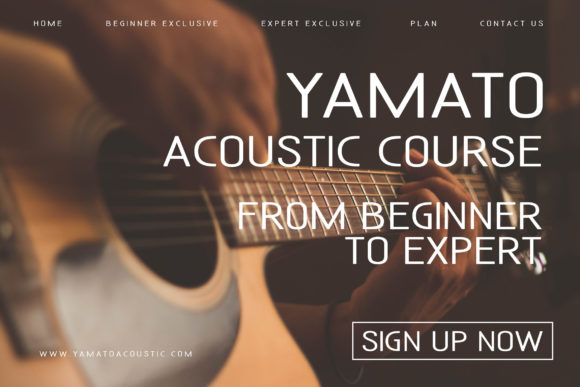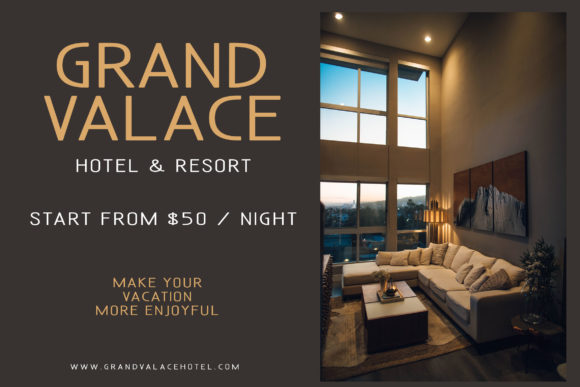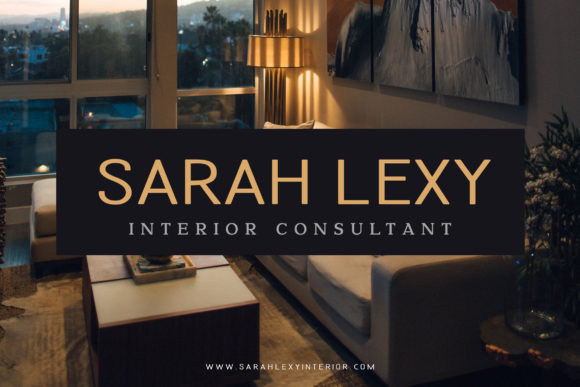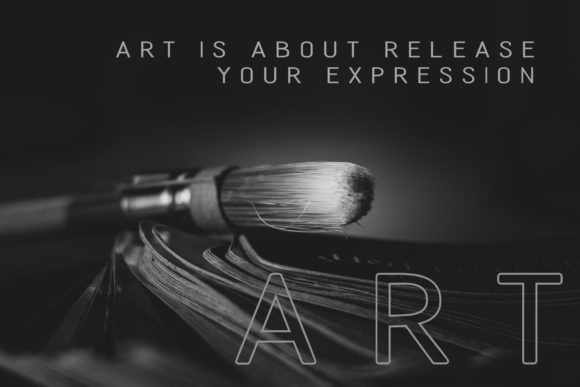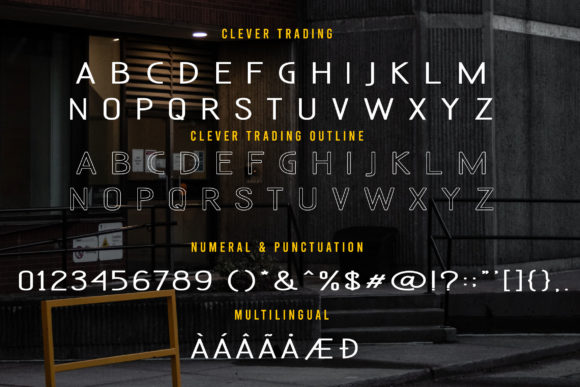
Have you ever stared at a blank page, waiting for that perfect idea to strike? That’s exactly where I was when I stumbled upon the Clever Trading Font. It’s as if the universe knew I needed a spark to ignite my creativity. The moment I saw its sleek, modern design, I knew I had to learn more about this clever font.
The Clever Trading Font is a simple yet effective sans serif font, perfect for web designs, business cards, or any project that needs a unique touch. Its clean lines and modern aesthetic make it a valuable addition to any designer’s toolkit. Whether you’re a seasoned pro or just starting out, the Clever Trading Font is an essential resource to elevate your designs and leave a lasting impression.
Clever Trading Font Key Features
- Font Styles: Clever Trading Font offers a range of font styles, including Regular, Italic, Bold, and Bold Italic, to cater to different design needs.
- Unique Characteristics: The font features a unique blend of modern and vintage elements, with clean lines, geometric shapes, and subtle texture, making it ideal for financial and business applications.
- Scalability: The font is designed to be highly scalable, ensuring that it remains legible and clear at various sizes and resolutions, from small text to large headings.
Clever Trading Font Review
As a designer, I’ve had the chance to play around with the Clever Trading Font, and I must say it’s an interesting choice for those looking for a unique trading or financial-related typography. ✨ The font’s design, which combines elements of modern and vintage styles, can work well in various applications such as websites, presentations, or even print materials.
Here are some of the things I like about Clever Trading Font:
- ✨ The font’s versatility in terms of style and functionality.
- ✨ The inclusion of various symbols and icons that can add a touch of professionalism to trading or financial-related content.
- ✨ The clear and legible typography, making it easy to read even in small sizes.
- ⚠️ The font might not be suitable for applications that require a more neutral or corporate look.
- ⚠️ Some users may find the font’s vintage elements too distracting or unconventional.
- ⚠️ The font’s availability in certain font formats or sizes might be limited.
Overall, I think Clever Trading Font can be a great choice for those who want to add a touch of personality to their trading or financial-related projects. However, it’s essential to consider the font’s limitations and ensure it aligns with your project’s overall style and tone.
The Clever Trading Font is ideal for:
– Financial and business-related designs
– Headings and titles for presentations and documents
– Creating a professional and modern look for your designs
To get the most out of the Clever Trading Font, use it in combination with other modern fonts, and experiment with different font sizes and colors to create a visually appealing design.